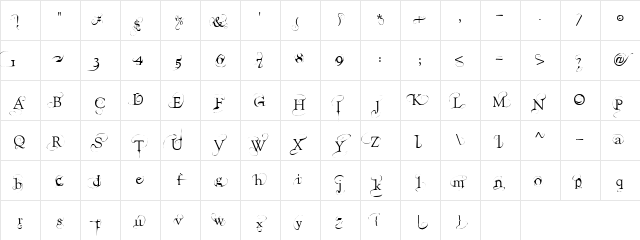
AL Fantasy Type Regular
Design Context for AL Fantasy Type
AL Fantasy Type is a composed and adaptable typeface that performs quietly and consistently across a wide range of design contexts.
Pro Tip: Use AL Fantasy Type in both headline and body roles to test its range before committing to a single application.